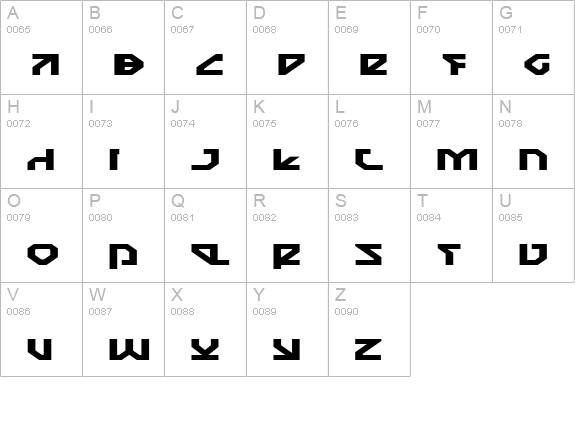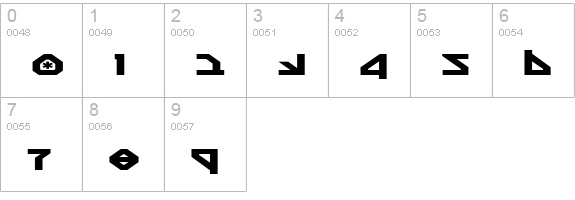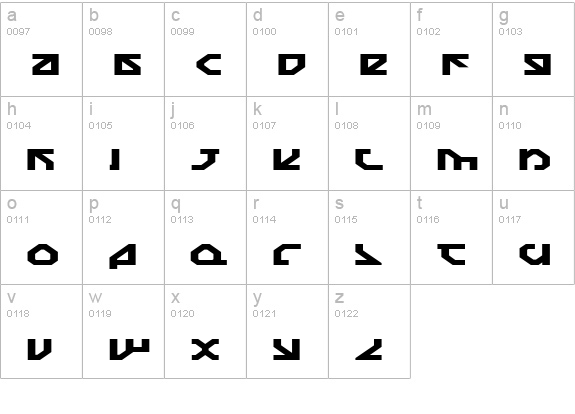
Nostromo Expanded is a distinctive, extended-width variant in the Nostromo typeface family \xE2\x80\x94 well suited to design and typography projects.
Nostromo Expanded font is a sleek and modern typeface that exudes sophistication and versatility. With its elongated letterforms and clean lines, this font is perfect for adding a touch of elegance to any design project. Whether you're working on a branding project, website design, or print materials, Nostromo Expanded will make your text stand out with its unique style. What sets Nostromo Expanded apart is not only its aesthetic appeal, but also its versatility. This font is suitable for a wide range of applications, from headlines and titles to body text and quotes. Its legibility and readability make it a great choice for both digital and print design. And the best part? Nostromo Expanded font is completely free to download at FontsMarket.com! So you can elevate your design projects without breaking the bank. Don't miss out on this opportunity to add a touch of sophistication to your work with Nostromo Expanded font.